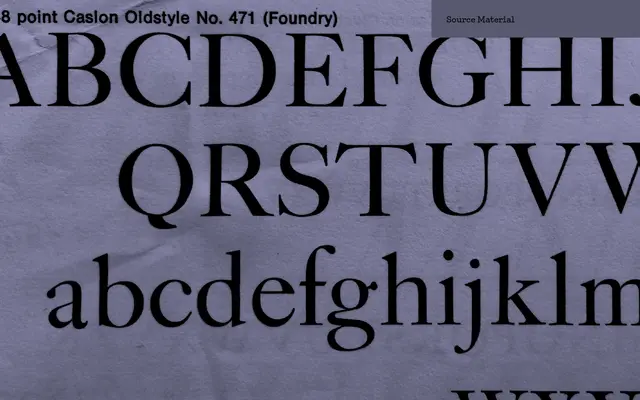
English 1766
A contemporary interpretation of Caslon in 20 styles, drawing on historical type specimen research rather than direct revival.
Built from close study of historical Caslon foundry type specimens and more recent digital revivals, English 1766 takes the quintessentially British old style as a starting point rather than a template. Ten weights from Thin to Heavy, each with a matching italic, extend the family well beyond the range of any original Caslon cutting. The breadth of the weight range makes it serviceable across editorial, branding and text work where an old style serif with contemporary flexibility is needed.
Rooted in the Caslon tradition, which places it firmly in the old style serif category. A2-Type describe it as a contemporary interpretation rather than a strict revival, giving it a broader weight range than historical Caslon cuts.